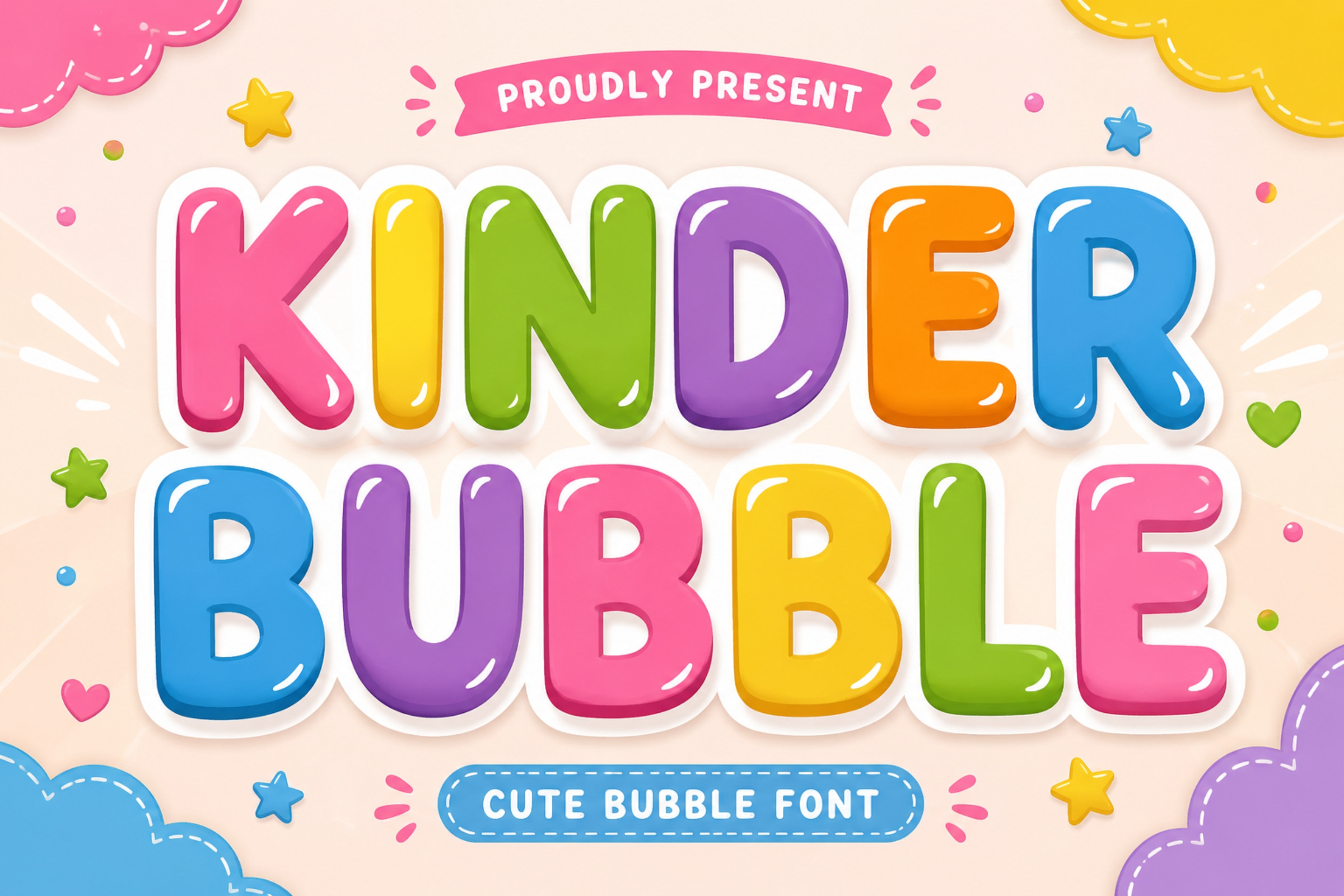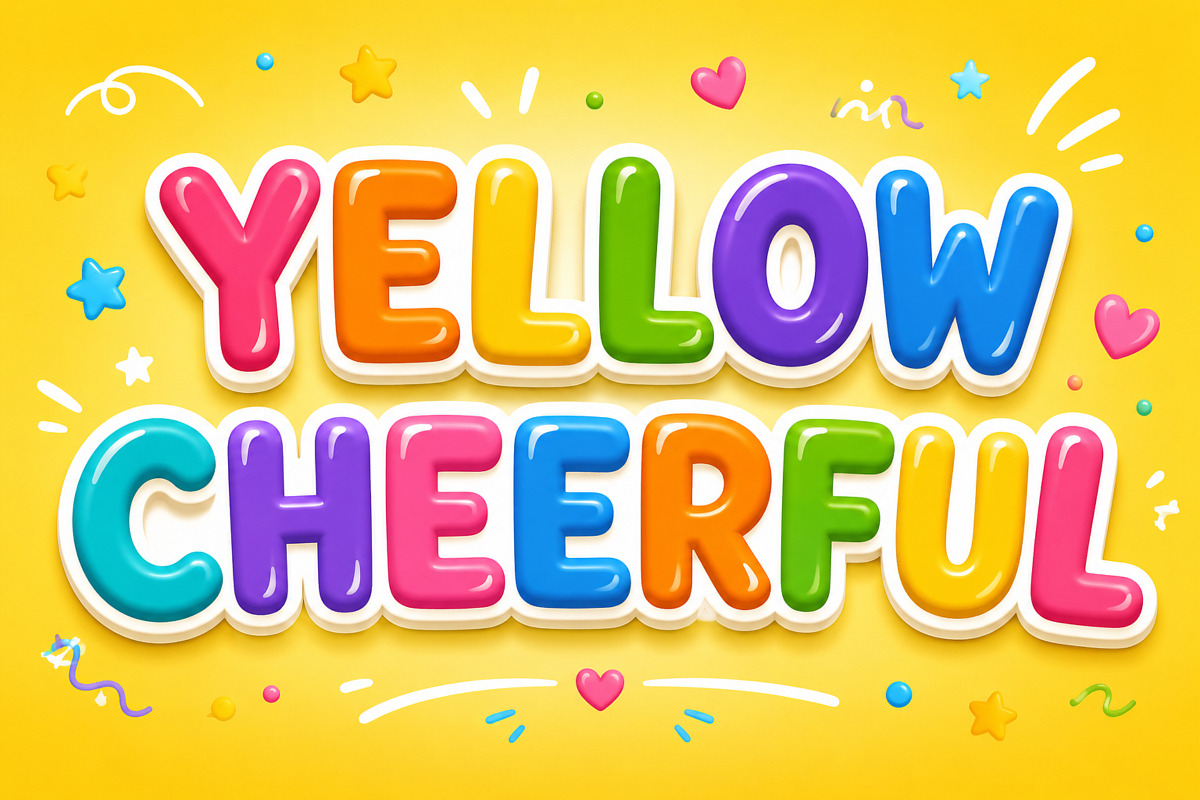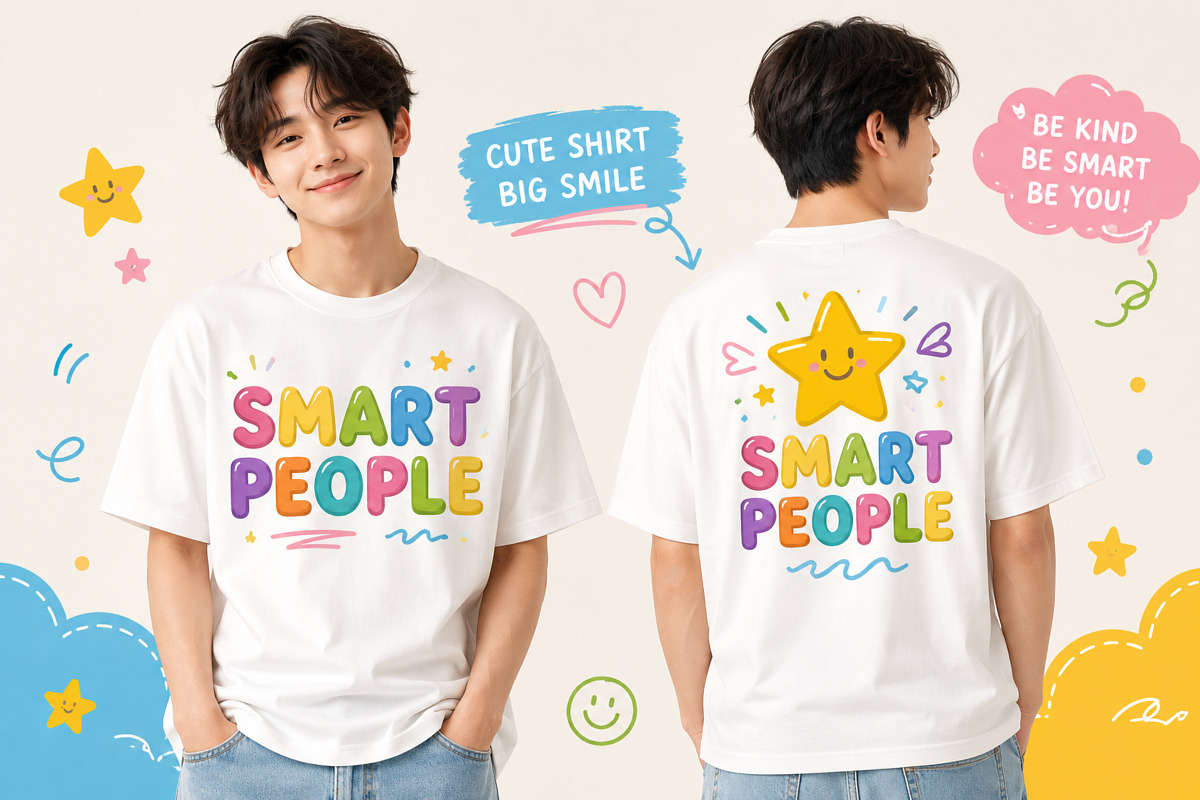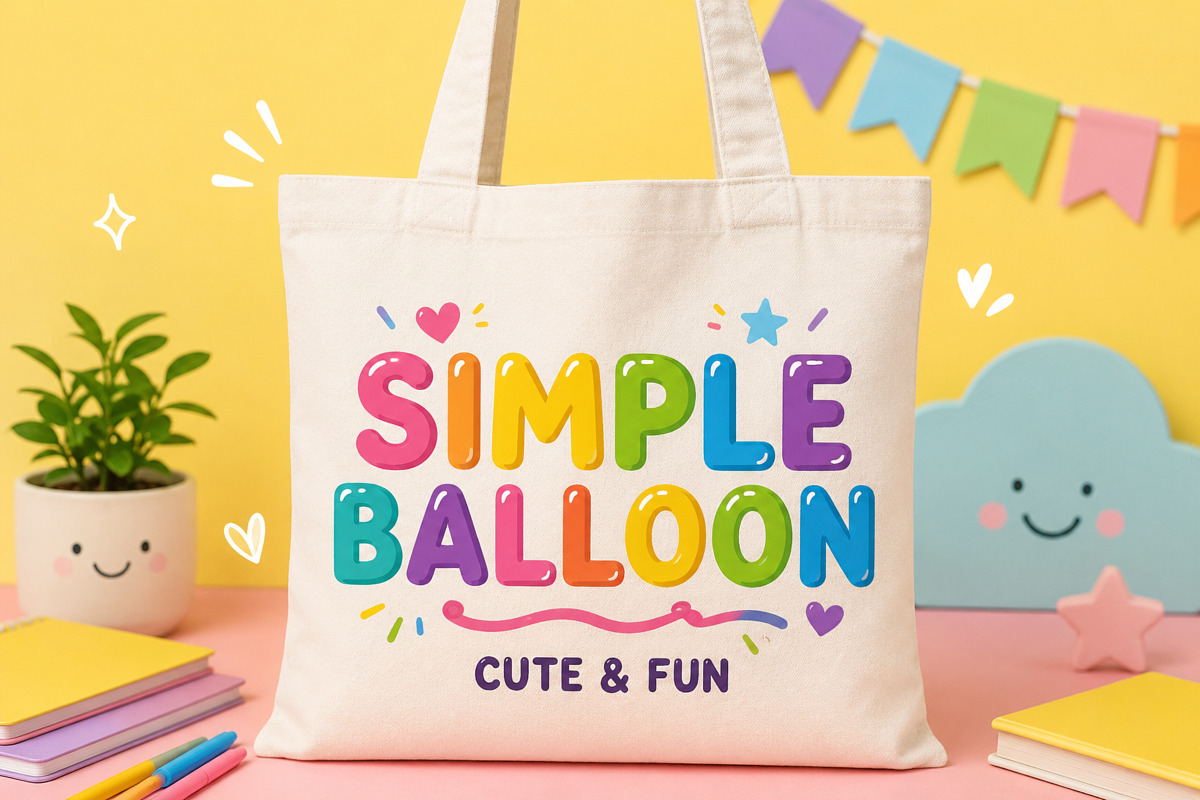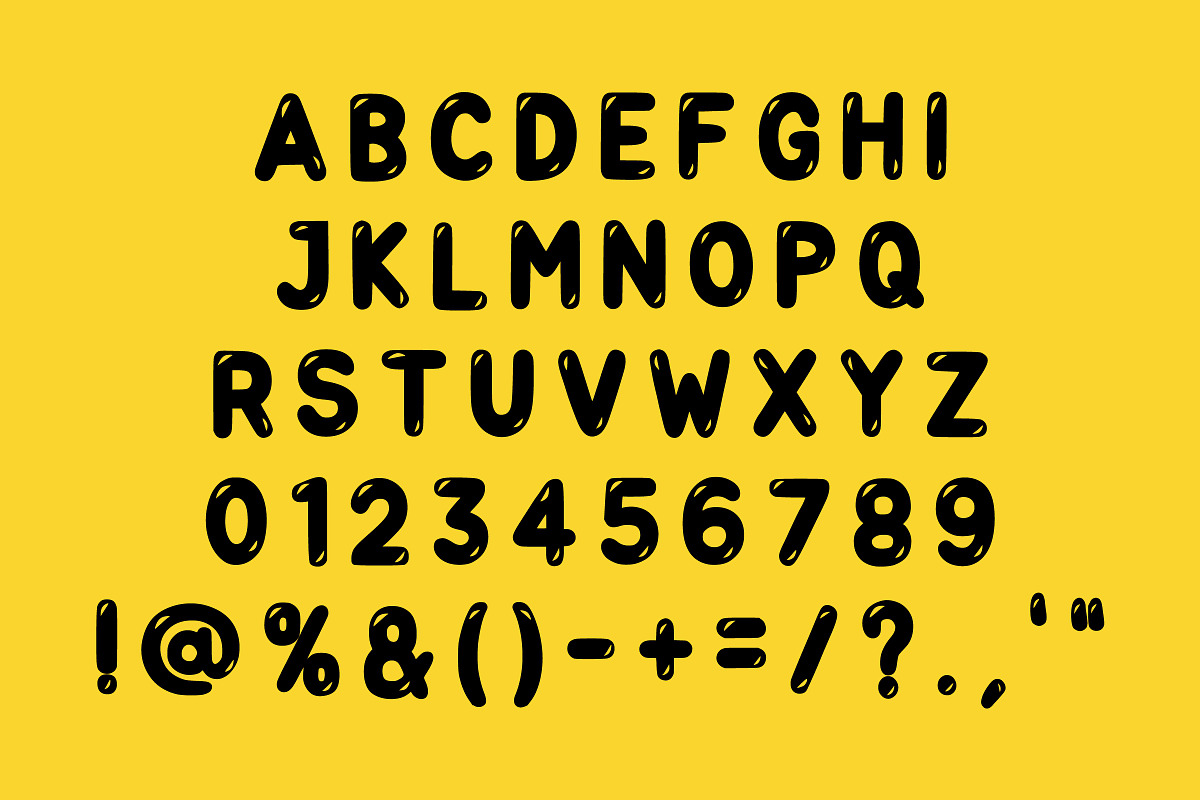
Kinder Bubble - Cute Bubble Font
Kinder Bubble is a cute and playful bubble font designed to bring joy and creativity into your projects. With its soft rounded shapes and fun personality, this font is perfect for children’s designs, school projects, posters, merchandise, and social media graphics.
Its bold and friendly style makes it highly readable while still maintaining a fun and energetic look. Kinder Bubble works great for t-shirt designs, tote bags, stickers, logos, and more.
Add a splash of happiness and color to your designs with Kinder Bubble!
Features: Cute & playful style Bubble rounded shapes Perfect for kids & fun themes Easy to read Great for print & digital Perfect For Kids products T-shirt & merchandise Tote bag designs Posters & banners Branding & logos Stickers & crafts Social media content